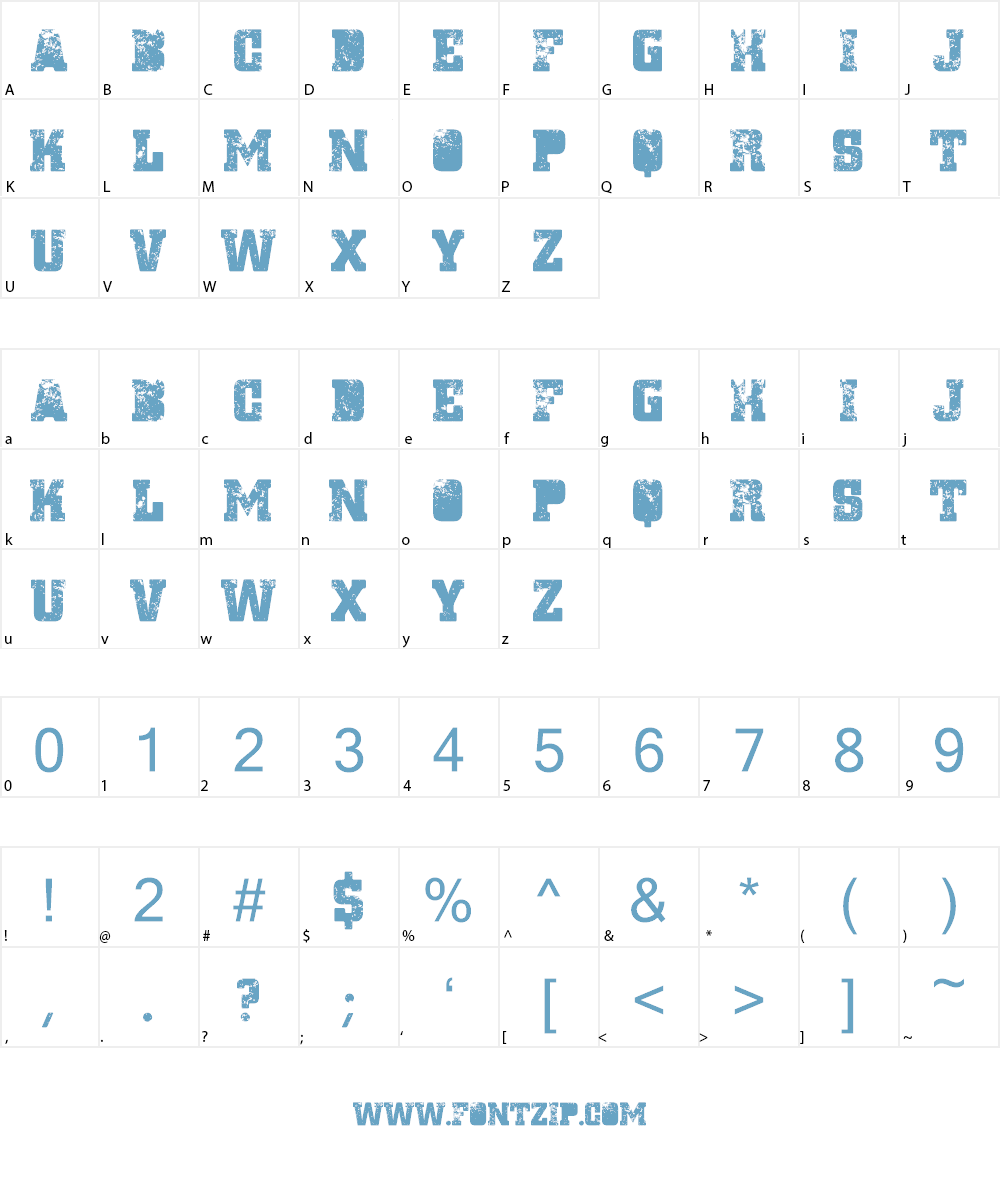
An inhospitable and crumbling font in tune with the times. And it flirts a little with the postwar Cyrillic typefaces. Perfect for oversimplified political campaigns.